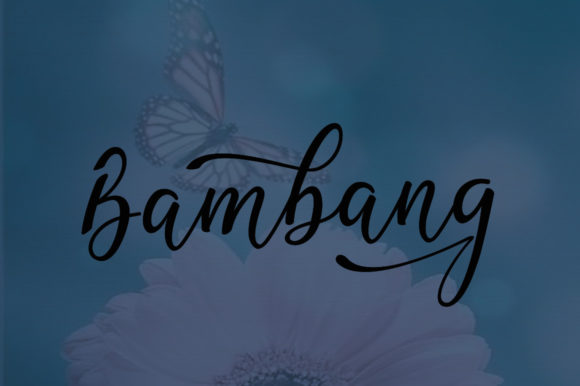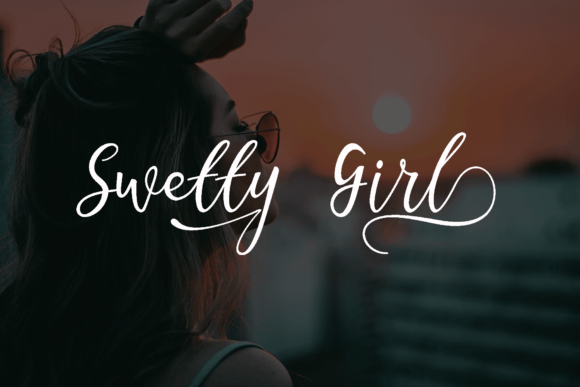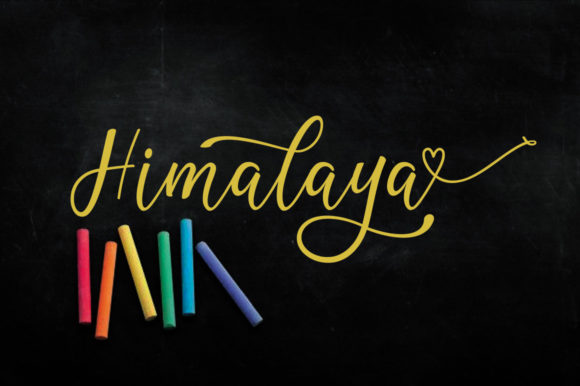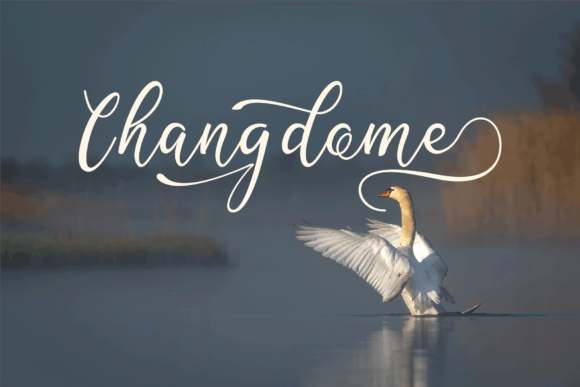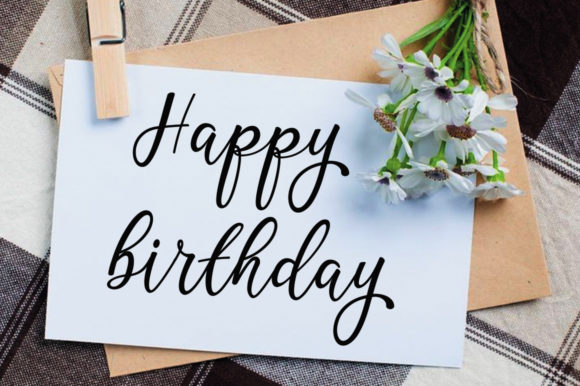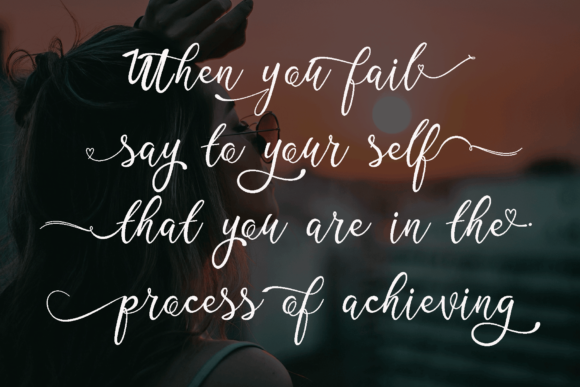
Introducing Anjelyna Font: Elevate Your Designs with Elegance and Sophistication
In the world of typography, few fonts manage to capture the essence of luxury and sophistication as effortlessly as Anjelyna Font. This elegant script font is a masterpiece of modern calligraphy, blending timeless classic elements with a contemporary atmosphere to create a truly unique visual experience. Whether you’re a designer looking to add a touch of glamour to your projects or a crafter seeking the perfect font to elevate your creations, Anjelyna Font is an exceptional choice.
The Inspiration Behind Anjelyna Font
Anjelyna Font draws inspiration from the classic calligraphy of the past, yet it does so with a modern twist that makes it instantly recognizable. The font’s creator aimed to capture the fluidity and expressiveness of hand-written calligraphy, while also ensuring that it meets the demands of contemporary design. The result is a font that exudes elegance and sophistication, making it perfect for a wide range of applications, from branding and advertising to packaging and digital media.
Key Features of Anjelyna Font
So, what sets Anjelyna Font apart from other script fonts on the market? Here are a few key features that make it a standout choice for designers and crafters:
- Elegant and Sophisticated Design: Anjelyna Font boasts a beautiful, flowing script design that adds a touch of luxury to any project.
- Contemporary Atmosphere: While Anjelyna Font is inspired by classic calligraphy, it has a distinctly modern feel that makes it perfect for contemporary designs.
- Impeccable Form: Every letter and character in Anjelyna Font has been carefully crafted to ensure that it meets the highest standards of typographic excellence.
Uses for Anjelyna Font
Anjelyna Font is an incredibly versatile typeface that can be used in a wide range of design projects. Here are a few ideas to get you started:
- Branding and Logo Design: Use Anjelyna Font to create a luxurious and sophisticated brand identity that sets your business apart from the competition.
- Wedding and Event Invitations: Add a touch of elegance to your wedding or event invitations with Anjelyna Font.
- Packaging Design: Use Anjelyna Font to create eye-catching packaging that stands out on store shelves.
- Digital Media: Anjelyna Font is perfect for use in digital media, including social media graphics, blog posts, and website headers.
Tips for Using Anjelyna Font
To get the most out of Anjelyna Font, here are a few tips to keep in mind:
- Use it Sparingly: Anjelyna Font is a statement font, so use it sparingly to avoid overwhelming your design.
- Experiment with Colors and Textures: Try pairing Anjelyna Font with different colors and textures to create a unique visual effect.
- Mix and Match with Other Fonts: Anjelyna Font works beautifully with other fonts, so don’t be afraid to experiment with different combinations.
In conclusion, Anjelyna Font is an exceptional choice for designers and crafters looking to add a touch of luxury and sophistication to their projects. With its elegant design, PUA encoding, and impeccable form, this font is sure to elevate your designs and set you apart from the competition. So why wait? Download Anjelyna Font today and start creating stunning designs that exude elegance and sophistication!